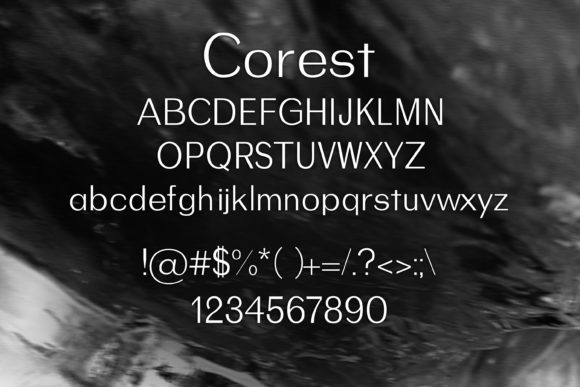
Introducing Corest Font: A Modern Twist on Traditional Sign Painting
In the world of typography, fonts play a crucial role in conveying messages, expressing creativity, and setting the tone for a brand or design. For designers and crafters, finding the perfect font can be a daunting task. However, if you’re looking for a stunning sans serif font that combines traditional sign painting with a modern twist, look no further than Corest Font.
What is Corest Font?
Corest Font is a clean and minimal sans serif font that draws inspiration from traditional sign painting. With its modern twist, it’s perfect for designers and crafters who want to add a touch of elegance and sophistication to their designs. Whether you’re working on a logo, branding project, or craft project, Corest Font is an excellent choice.
Key Features of Corest Font
- Clean and Minimal Design: Corest Font boasts a clean and minimal design that makes it perfect for modern designs. Its simplicity ensures that your message is conveyed clearly and effectively.
- Traditional Sign Painting Inspiration: Corest Font takes inspiration from traditional sign painting, giving it a unique and distinctive look. The font’s subtle nods to traditional sign painting make it stand out from other sans serif fonts.
- Modern Twist: Corest Font’s modern twist makes it perfect for contemporary designs. Its sleek lines and curves ensure that your design looks fresh and modern.
- Versatile: Corest Font is a versatile font that can be used for a wide range of design projects, from logos and branding to craft projects and digital designs.
Who is Corest Font for?
Corest Font is perfect for designers, crafters, and anyone looking for a high-quality sans serif font. Whether you’re a:
- Graphic Designer: Corest Font is an excellent choice for graphic designers who want to create stunning logos, branding projects, and marketing materials.
- Crafter: Corest Font is perfect for crafters who want to add a touch of elegance to their projects, from handmade cards to DIY crafts.
- Small Business Owner: Corest Font is an excellent choice for small business owners who want to create a professional brand image.
In conclusion, Corest Font is a stunning sans serif font that combines traditional sign painting with a modern twist. Its clean and minimal design makes it perfect for modern designs, while its versatility ensures that it can be used for a wide range of design projects. Whether you’re a designer, crafter, or small business owner, Corest Font is an excellent choice. So why wait? Try Corest Font today and take your designs to the next level!